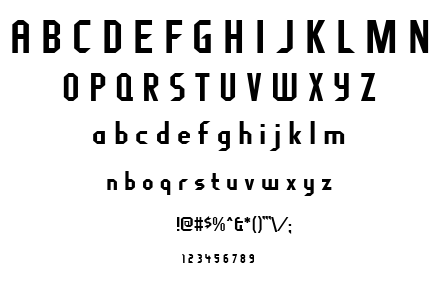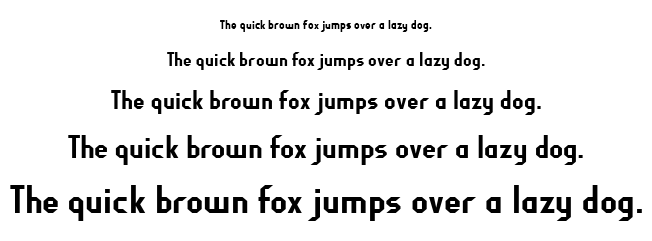
Fragile Bombers is a sharp, militaristic display font with a sly robotic balance. It’s modular but not really. Don’t forget to read the files inside the zip for details. Updated in 2012.